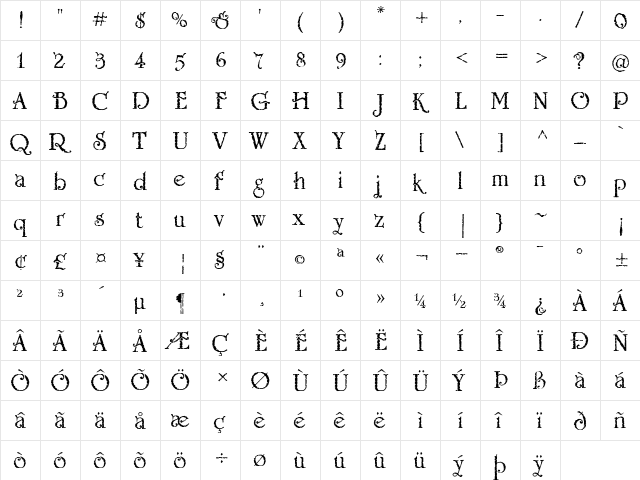
Buccaneer Bayer Regular
Design Context for Buccaneer Bayer Typeface
Buccaneer Bayer is a composed and adaptable typeface that performs quietly and consistently across a wide range of design contexts.